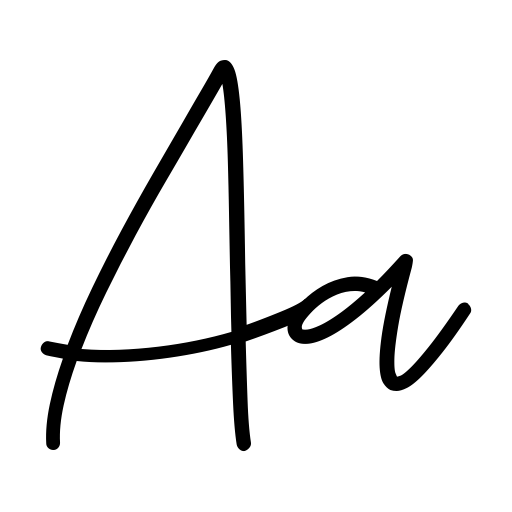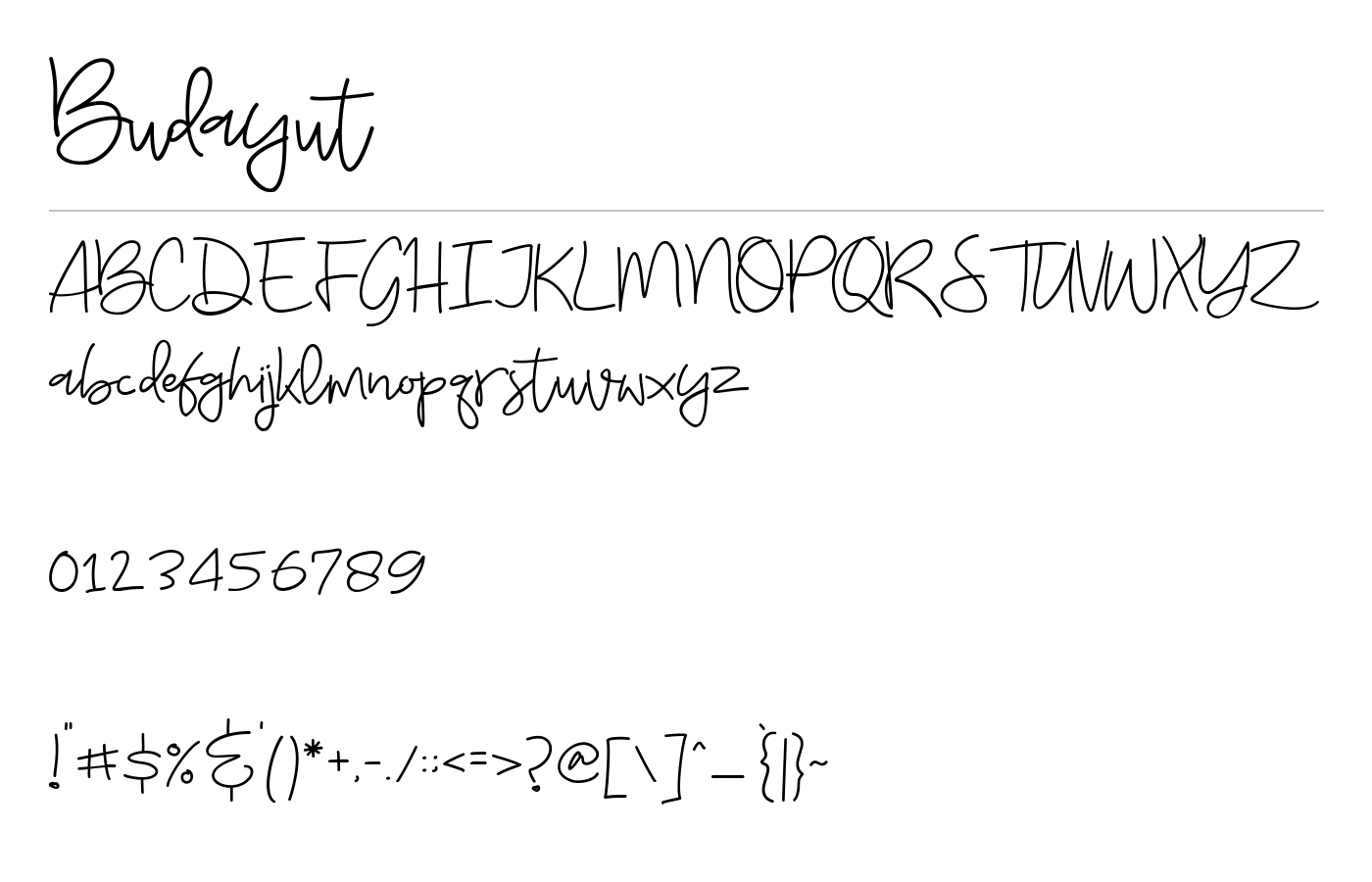
Budayut is a playful, handwritten script font with a light, airy feel and smooth, flowing lines. Its slender strokes and casual letterforms give it a personal, friendly vibe, making it perfect for creative branding, invitations, and informal designs that want to convey warmth and approachability. This font works well in logos, social media graphics, and other projects where a hand-crafted, relaxed style is desired.
Budayut Font
About Budayut Font
| Font family | Budayut Font |